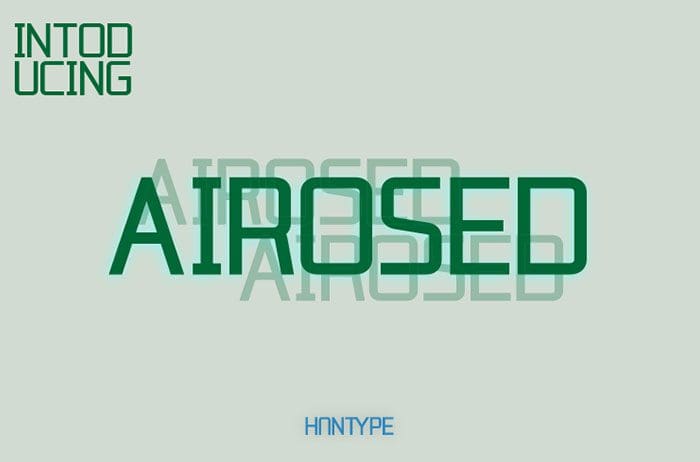
Airosed Sans Serif Font
Airosed is an elegant and beautiful sans serif font with an undeniably clean feel. With its neat and beautiful arrangement of letters, this typeface will look outstanding in both formal and non-formal designs. Thanks to Mas Anis for sharing this wonderful font! Take a look at this portfolio for more of his stunning fonts.